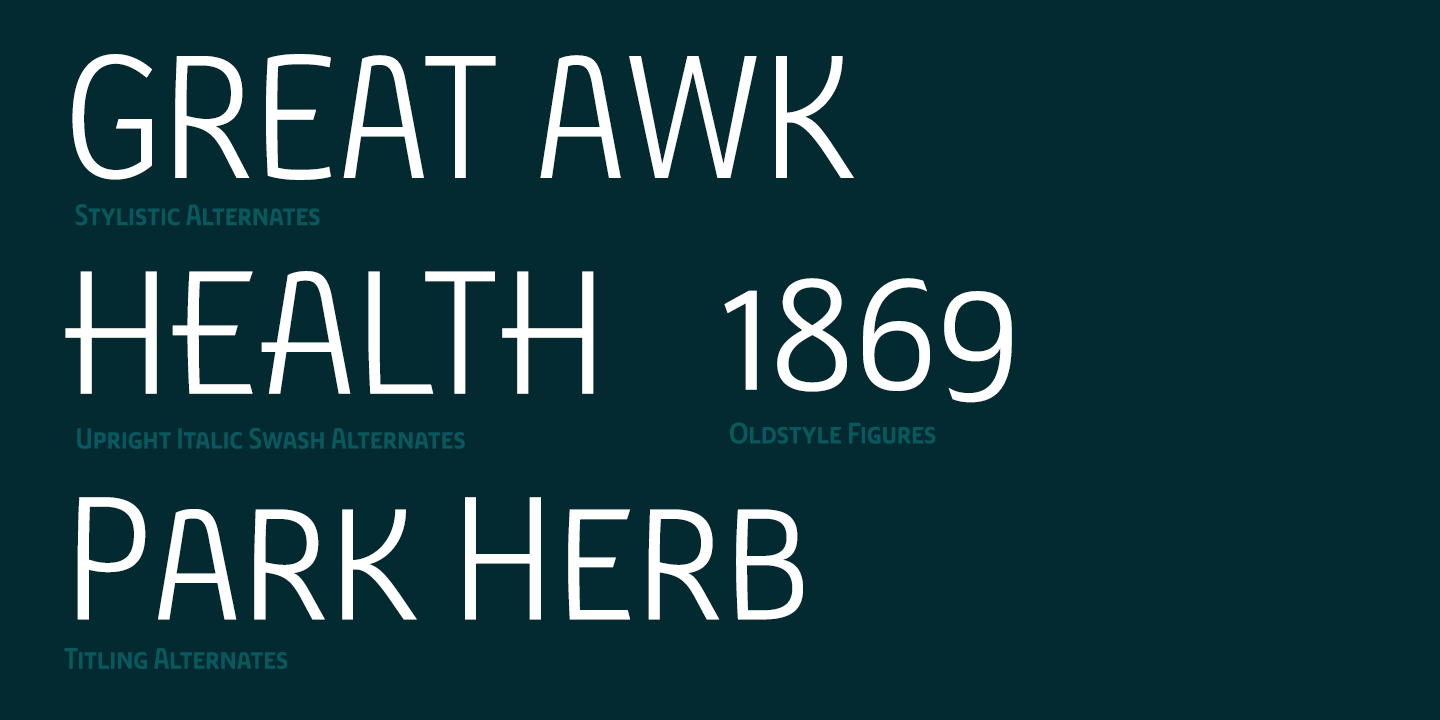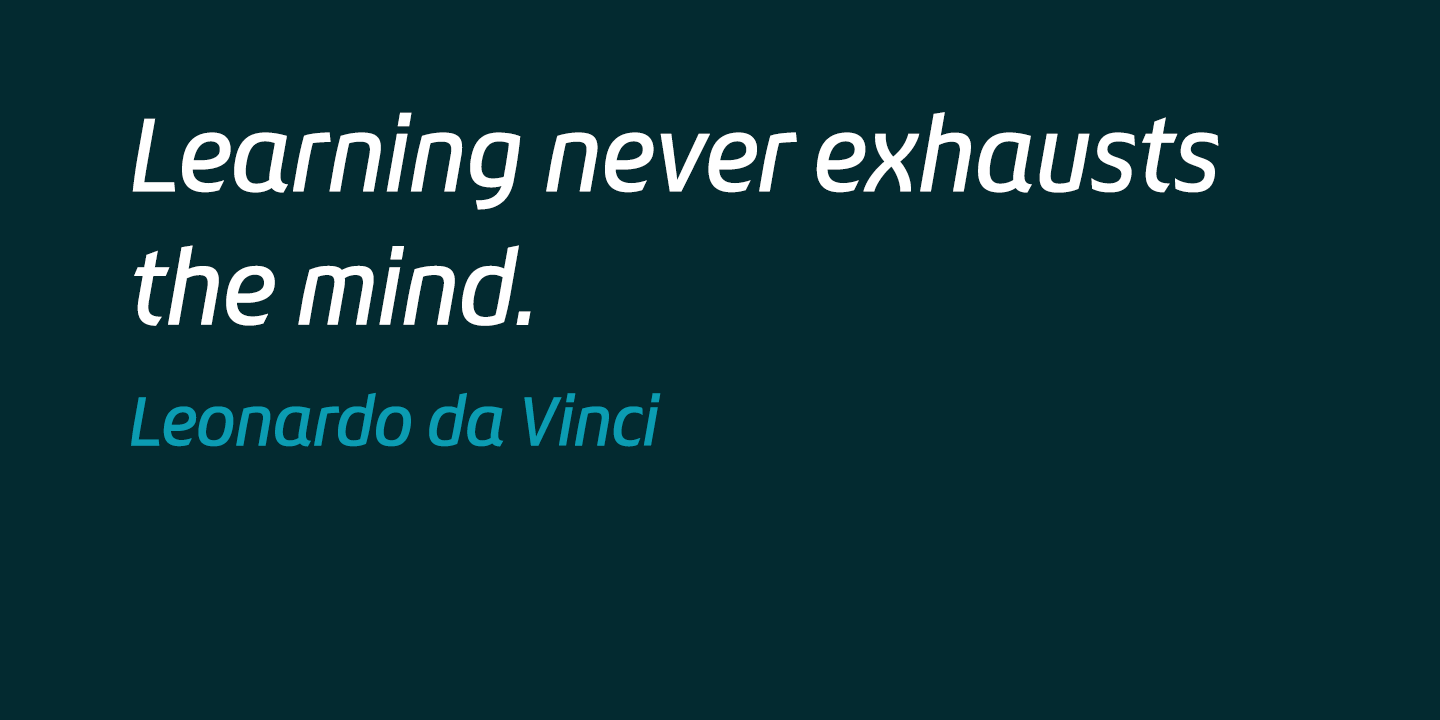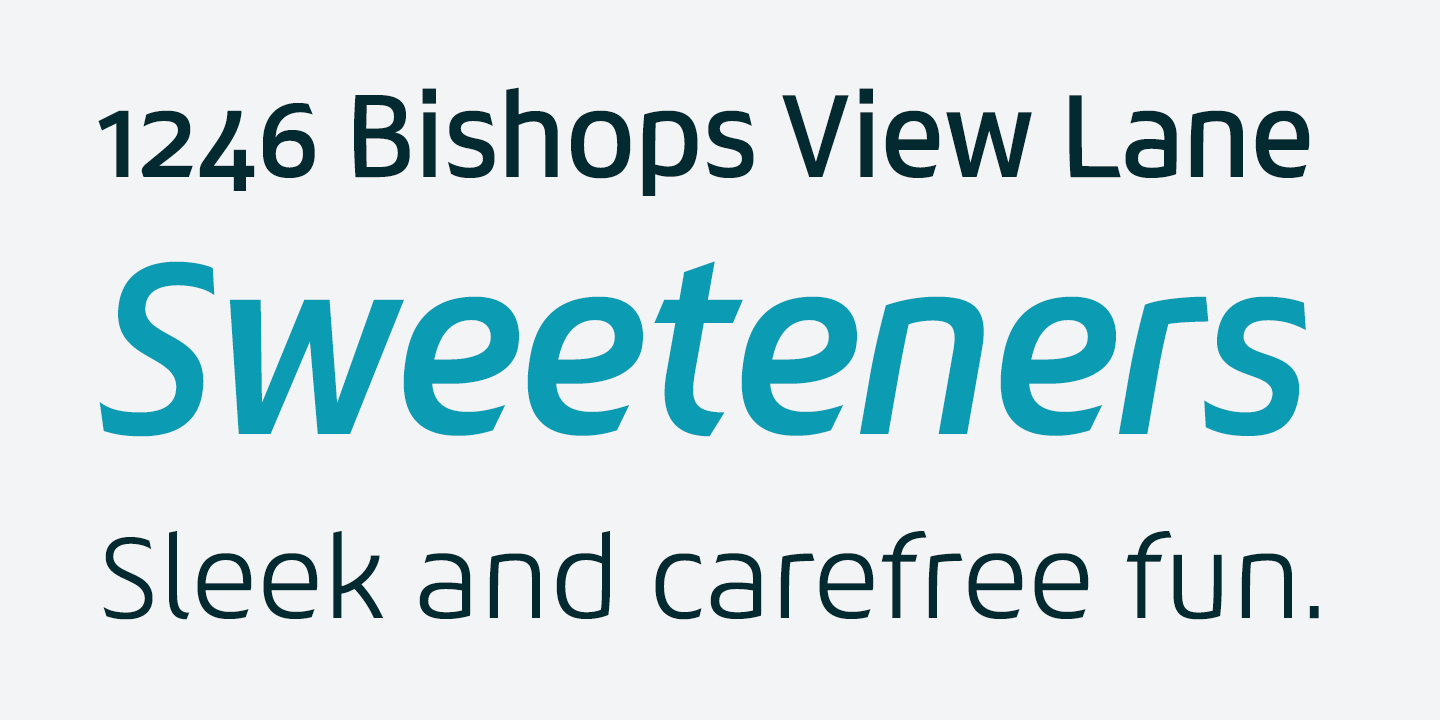
About Chypre
21st century innovation demands a 21st century style. It\’s the age of virtual assistants. It\’s machine learning and AI. It\’s blockchain and cryptocurrencies. Shape the feel of these modern concepts with the mechanically-inspired forms of Chypre. Chypre\’s…